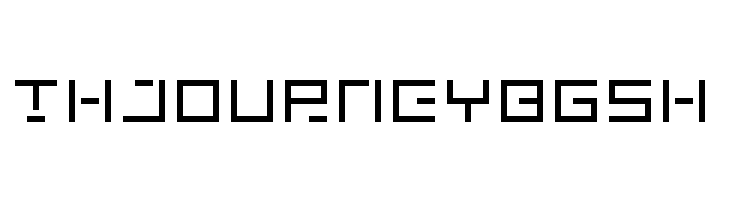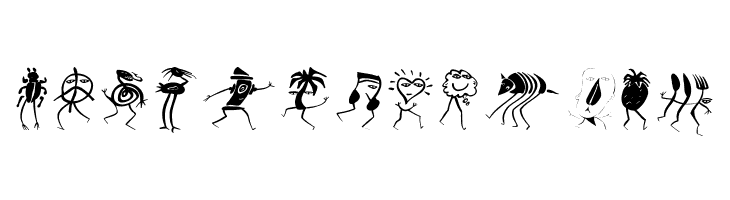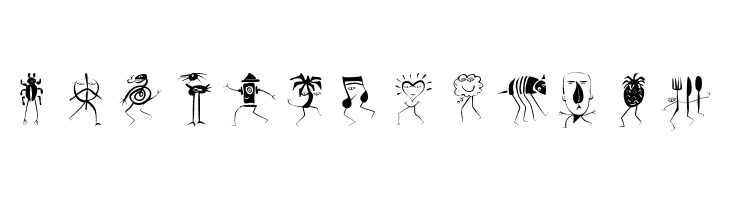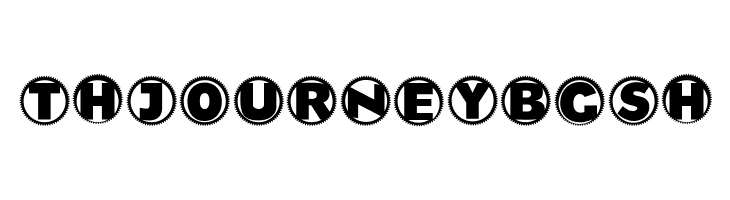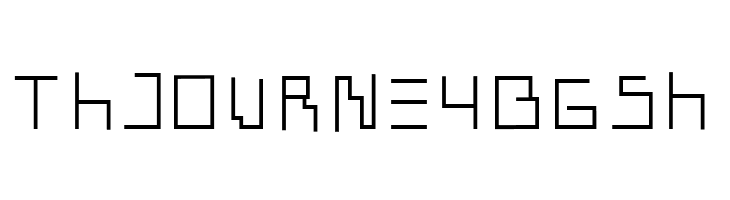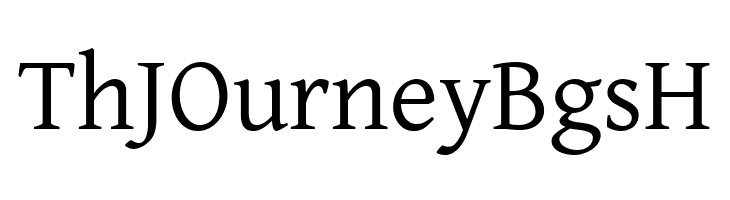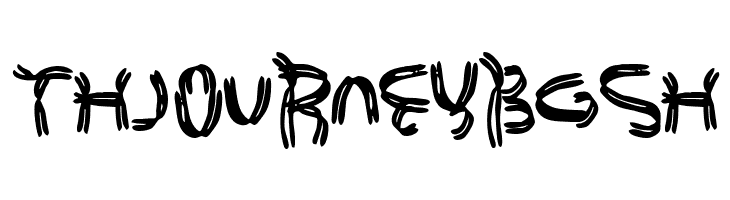
• Gearing-ZahnradABC
A bold, gear-themed decorative font with high contrast and industrial style.
• GeldRegiertDieWelt
Finance-themed dingbat font with hand-drawn illustrations.
• Genericons Regular
A versatile set of clean, minimalistic icons for digital applications.
• GenesisSketches
Whimsical, abstract figures form each character in a bold, decorative style.
• GenManipulated
A quirky, decorative font with surreal, illustrated stick-figure characters.
• GenManipulatedRounded
Abstract, creature-inspired decorative font with hand-drawn style.
• Genome tf
A bold, hand-drawn font with a brush-like texture and dynamic style.
• GenotypiPrototype
A geometric, pixelated font with a digital, retro-futuristic style.
• genown_v01
• Gentium Basic
A classic serif font with elegant, readable characters and moderate contrast.